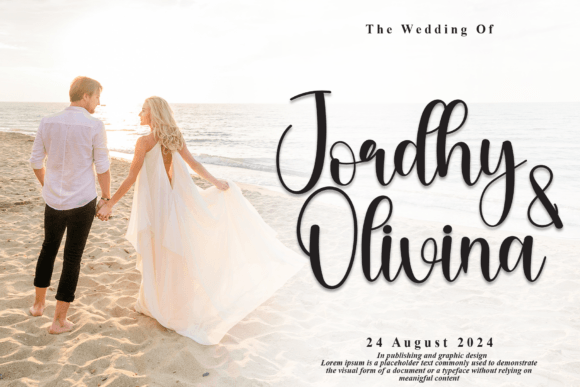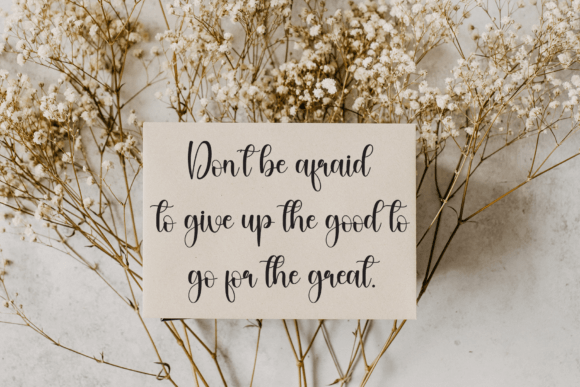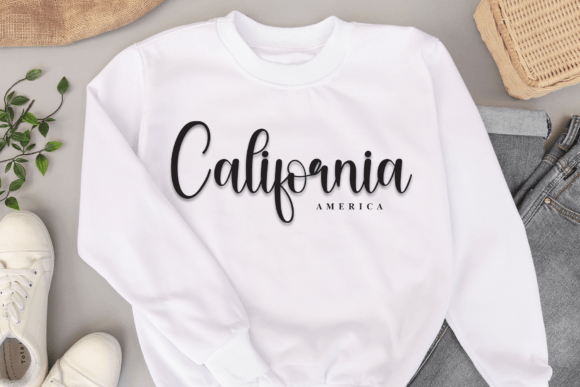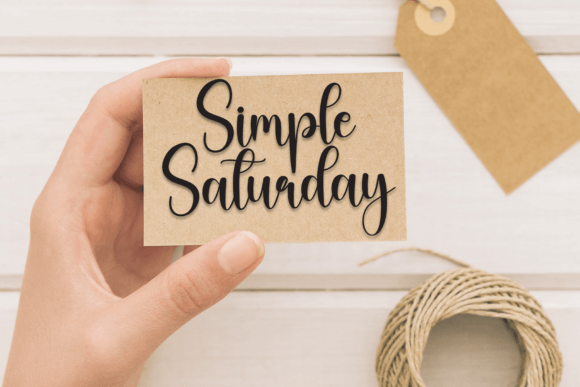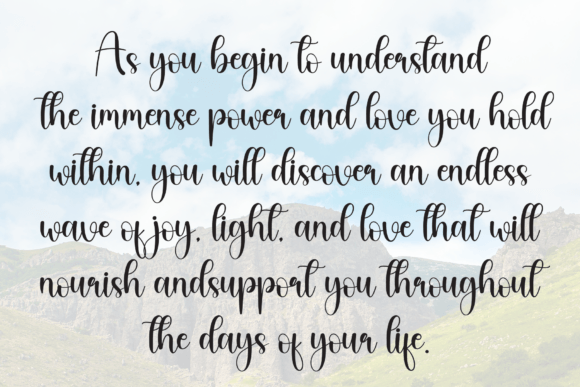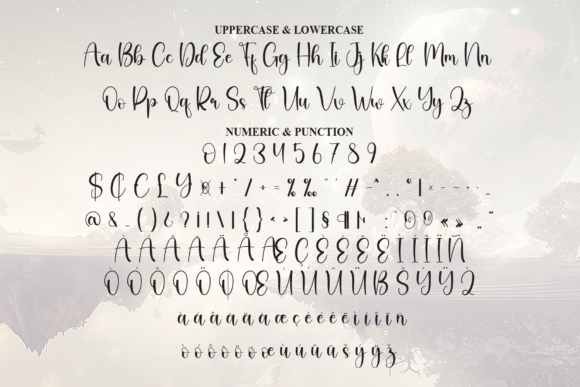
Introduction to Fantasi Font
Fantasi is a lovely handwritten font that looks like beautiful, flowing cursive.
It has a personal touch, making it perfect for adding a warm and friendly feel to your writing or designs .